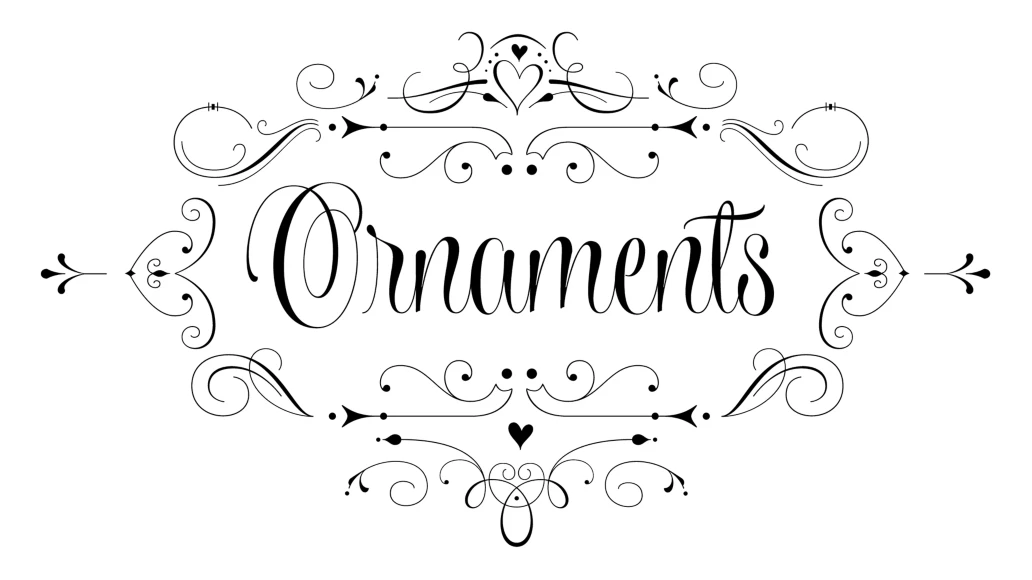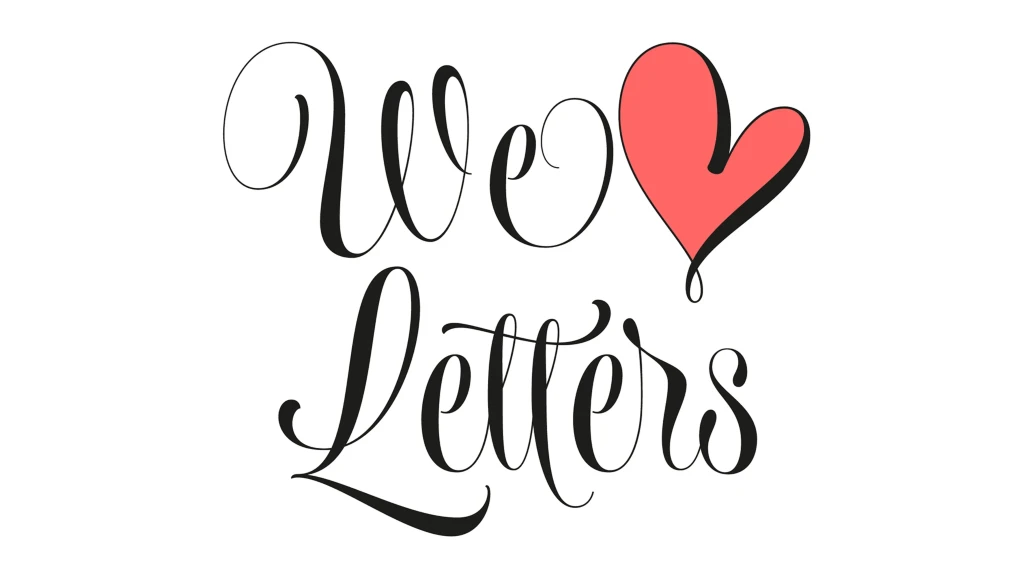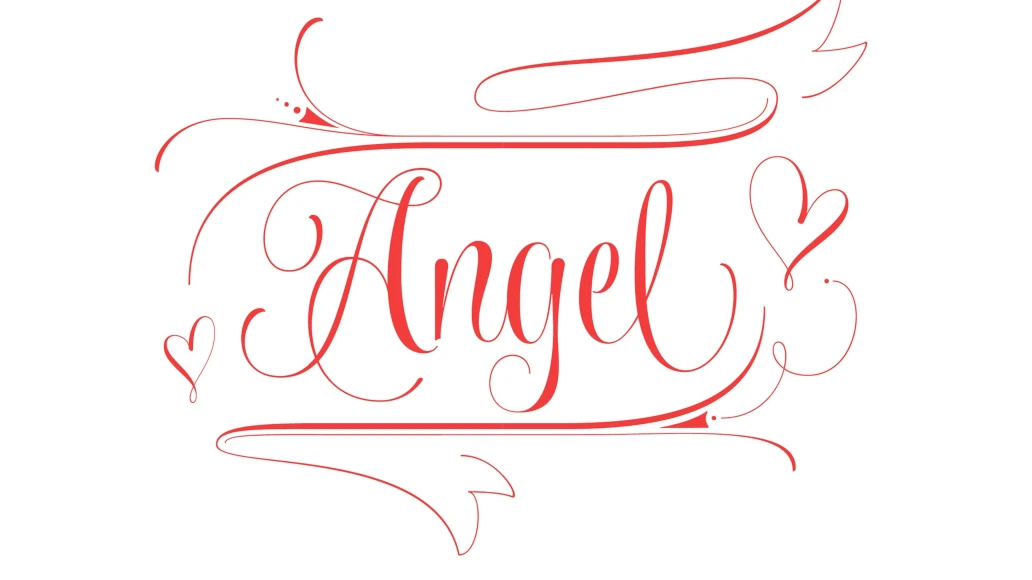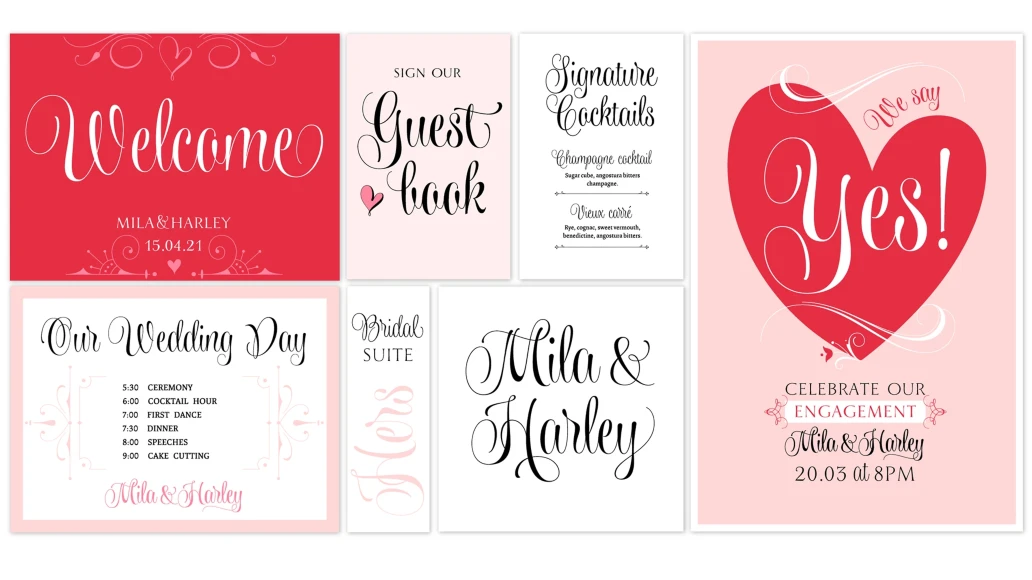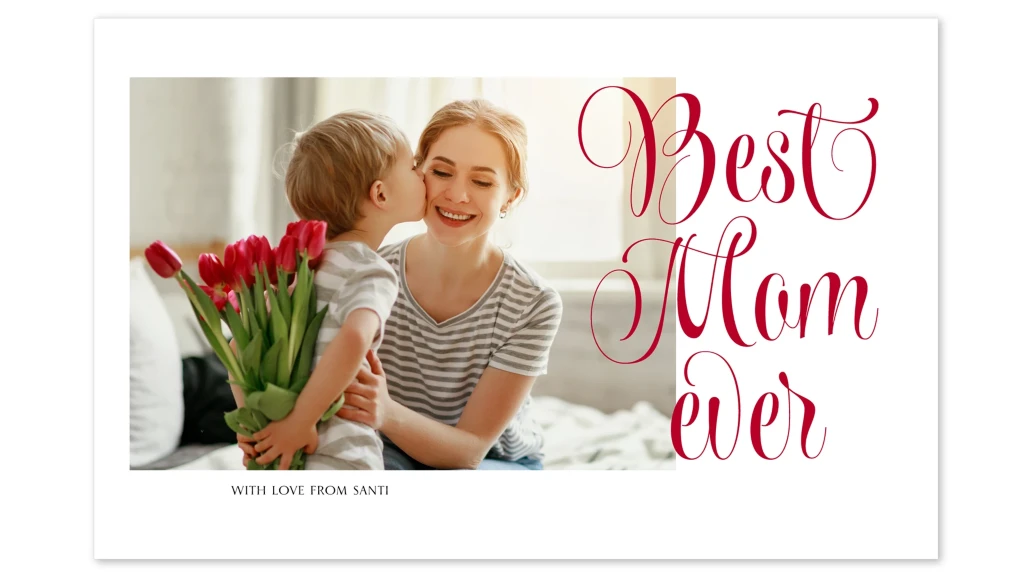
Wishes
From Typesenses
Plenty of swashes, ligatures, beginning and ending shapes, Wishes is a wit option for invitations, cards, stationery, fashion and apparel, among a wide range of uses. The curves of the cursive style are neither too solemn or pompous, its grace and playfulness are more 1950s than 1750s. This family offers the designer an additional decorative toolkit full of frames, ribbons, hearts, flowers and ornaments, plus a collection of caps and small caps.
Wishes Script Pro includes the complete set of Script characters plus Ornaments and Caps. The family offers optically optimized Display and Text styles for each of the weights: Light, Regular and Bold.
Designed by Sabrina Lopez
Slashed Zero
Titling
Initial Forms
Final Forms